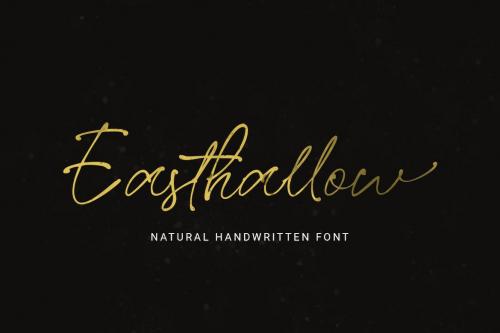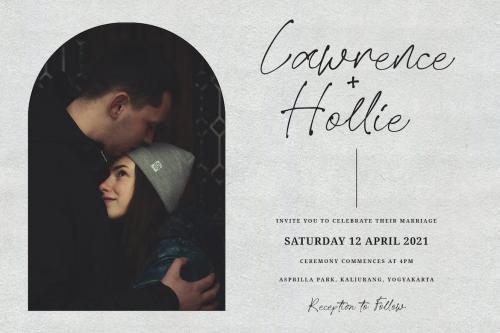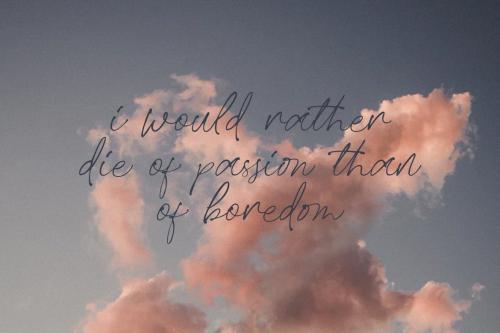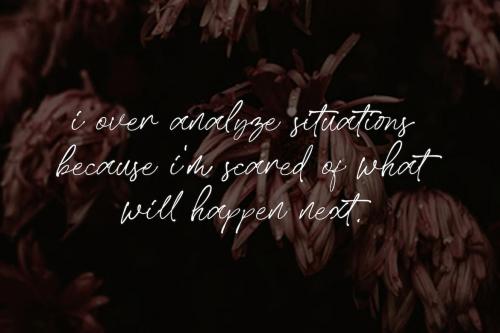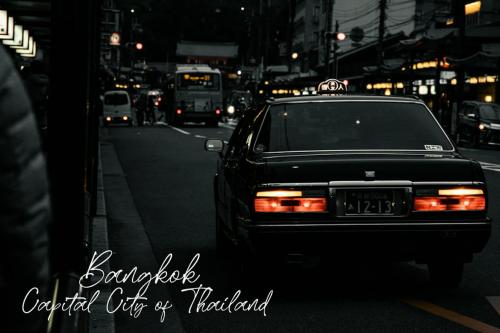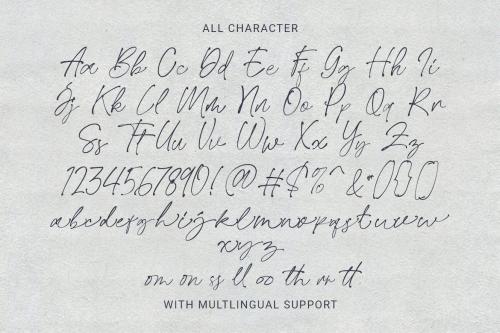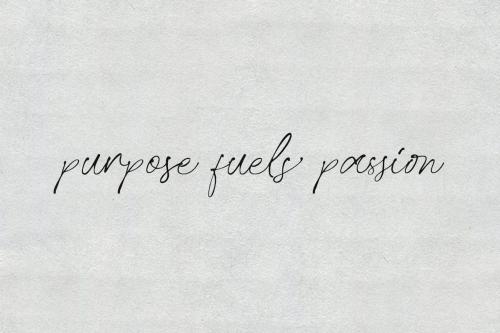
东部 hollow 手写体字型
Easthallow Handwritten Font
Introducing, **Easthallow** Handwritten Font! Easthallow is a natural handwritten font that gives a natural and feminine touch to your design. This font is perfect for signature logos, wedding invitation, branding, etc.
Introducing, **Easthallow** Handwritten Font!
Easthallow is a natural handwritten font that gives a natural and feminine touch to your design. This font is perfect for signature logos, wedding invitation, branding, etc.
+ uppercase & lowercase
+ numbers and punctuation
+ multilingual
+ ligatures
+ alternates